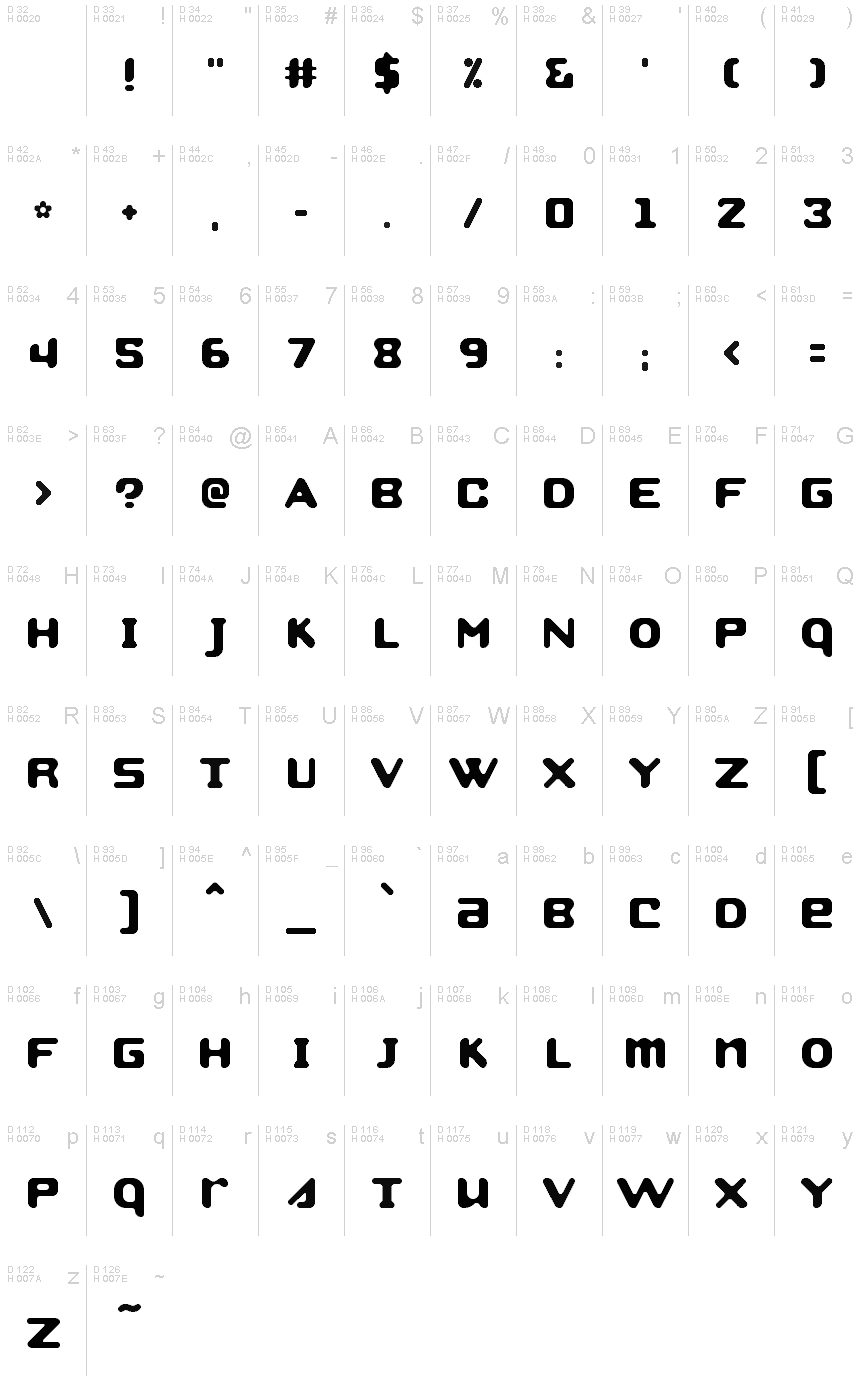
Strobo
Strobo, crafted by the talented Graham H Freeman, is a display font that epitomizes the essence of modern techno style. Its bold weight commands attention and anchors any design with its assertive presence. The Strobo font is characterized by its sleek lines and contemporary curves, making it an excellent choice for designers aiming to inject a dynamic and cutting-edge vibe into their projects.
The aesthetic appeal of Strobo lies in its clean geometry and futuristic flair, which resonates well with tech-oriented branding, electronic music event promotions, or any creative endeavor that desires a touch of avant-garde sophistication. Its heavy yet balanced form ensures legibility while making a striking visual impact.
Whether you're crafting eye-catching headlines for an online magazine or designing the next iconic logo for a startup, Strobo's unique techno style offers endless possibilities to elevate your creative projects with both strength and style.